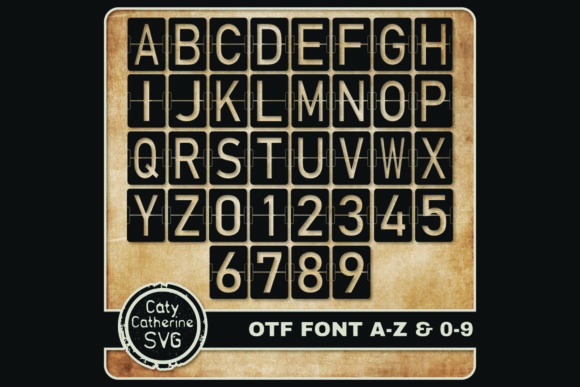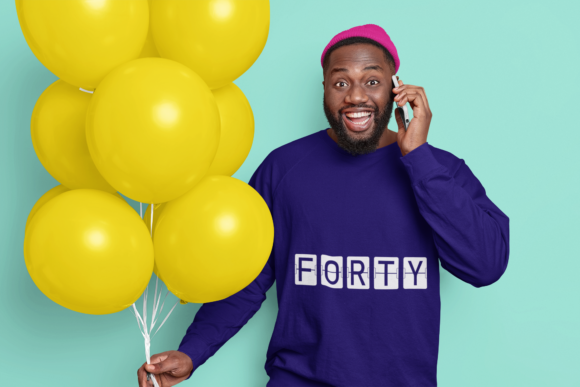
The Ultimate Design Hack: Caty Keeps Score Font
I’ll never forget the time I was working on a project for a client who needed a fun and quirky font to match their brand’s playful personality. I had spent hours scouring the internet for the perfect font, but nothing seemed quite right. That was until I stumbled upon Caty Keeps Score – a cool and fun decorative font that instantly elevated my design game. In this article, I’ll share my experience with Caty Keeps Score, its features, and how to make the most of it in your designs.
An Honest Review of Caty Keeps Score
- ✨ Unique and playful design that’s perfect for creative projects
- ✅ Highly versatile and can be used for a wide range of topics and themes
- 💡 Excellent for headlines, titles, and short text passages
- 🎉 Supports OpenType features, glyphs, and stylistic alternates for added customization
While Caty Keeps Score is an amazing font, there are a few things to keep in mind:
- ⚠️ May not be suitable for long blocks of text or body copy due to its decorative nature
- 🤔 Limited legibility at small font sizes, so use with caution
A Practical Guide to Using Caty Keeps Score
The Story Behind Caty Keeps Score
Caty Keeps Score was designed by a talented type designer who wanted to create a font that was both fun and functional. Inspired by the world of sports and competition, Caty Keeps Score is the perfect font for designers who want to add a touch of playfulness to their creations.
Q: What type of projects is Caty Keeps Score best suited for?
A: Caty Keeps Score is perfect for creative projects, such as social media graphics, posters, flyers, and other visual materials.
Q: Does Caty Keeps Score support OpenType features?
A: Yes, Caty Keeps Score supports OpenType features, glyphs, and stylistic alternates, making it a versatile font for designers.